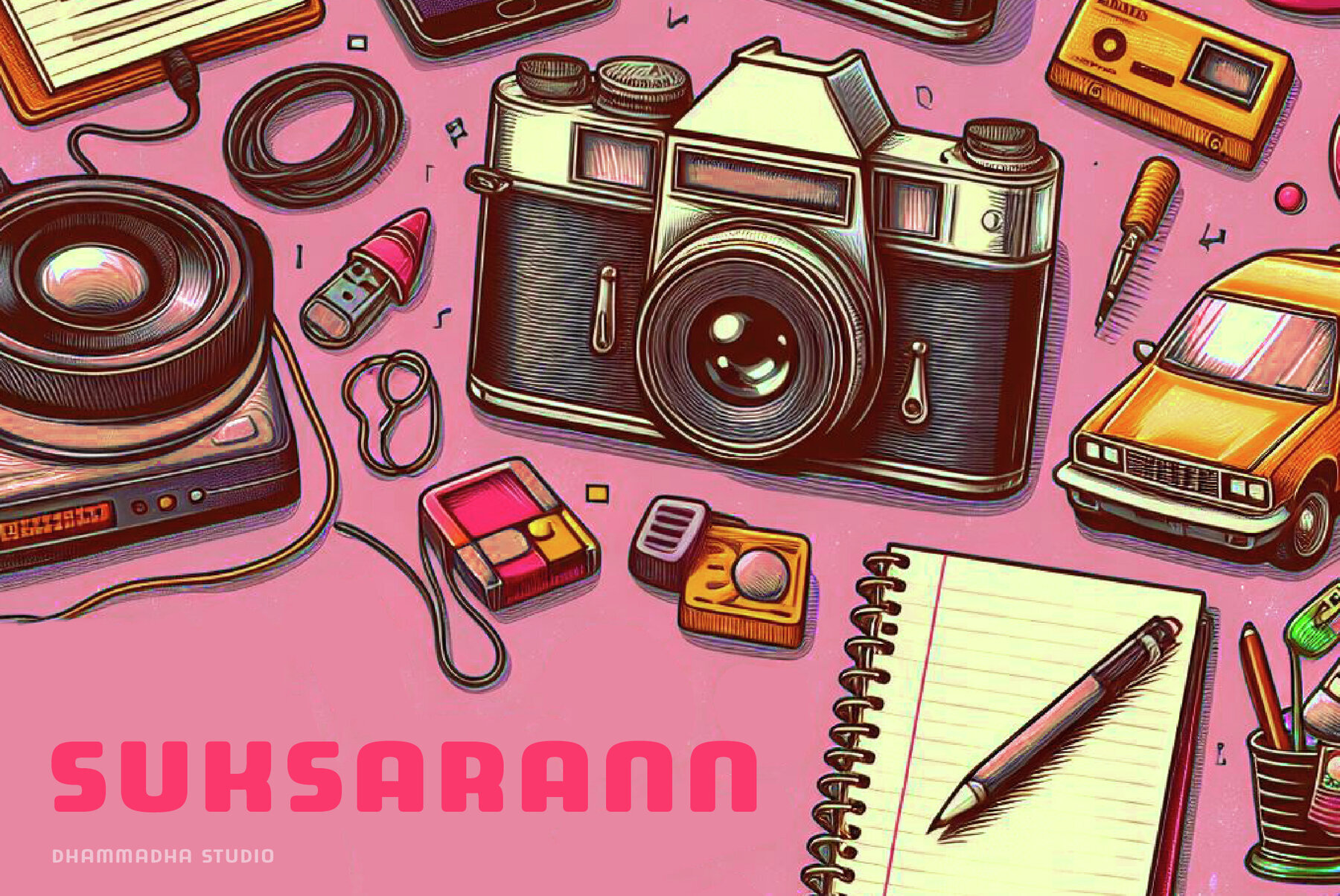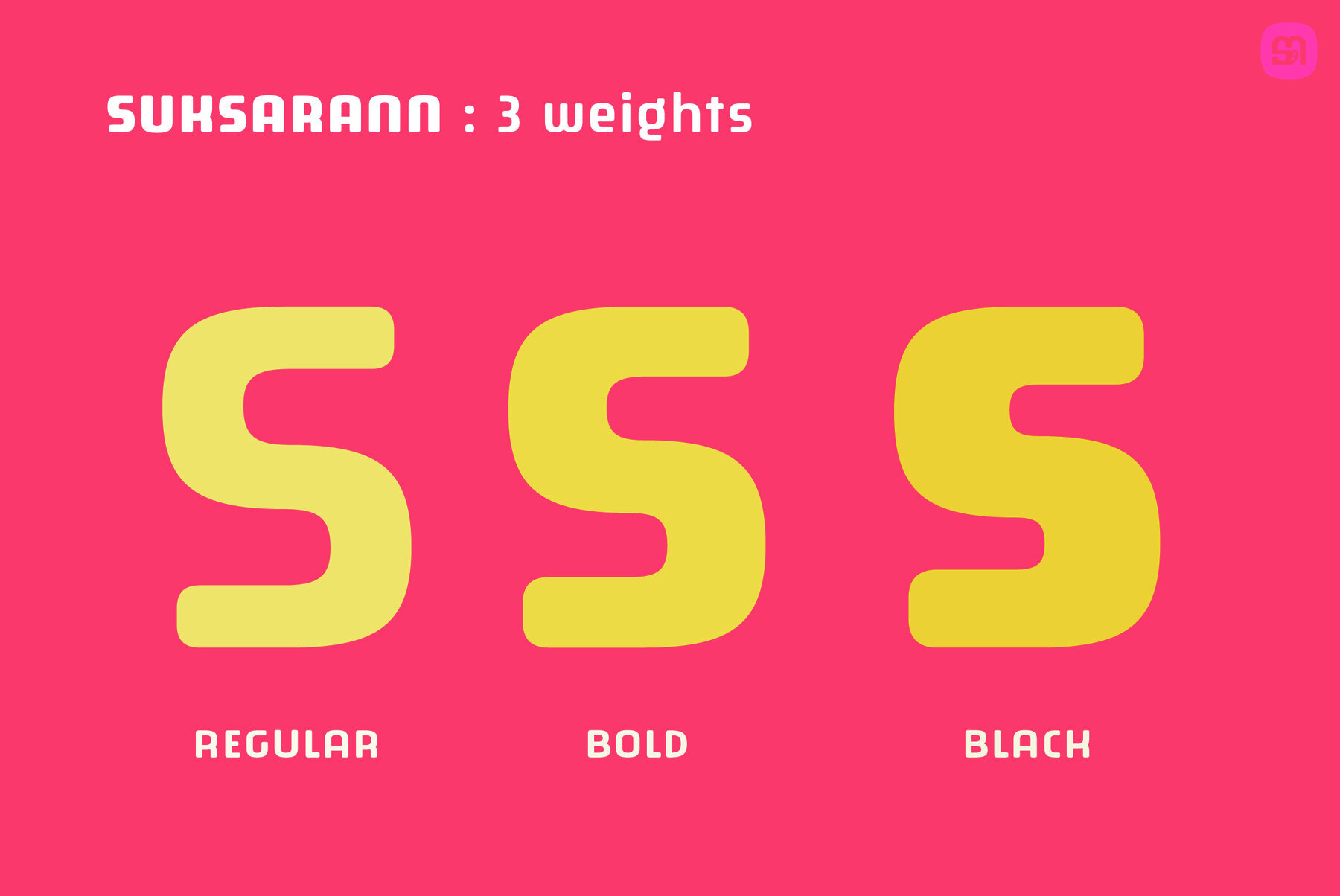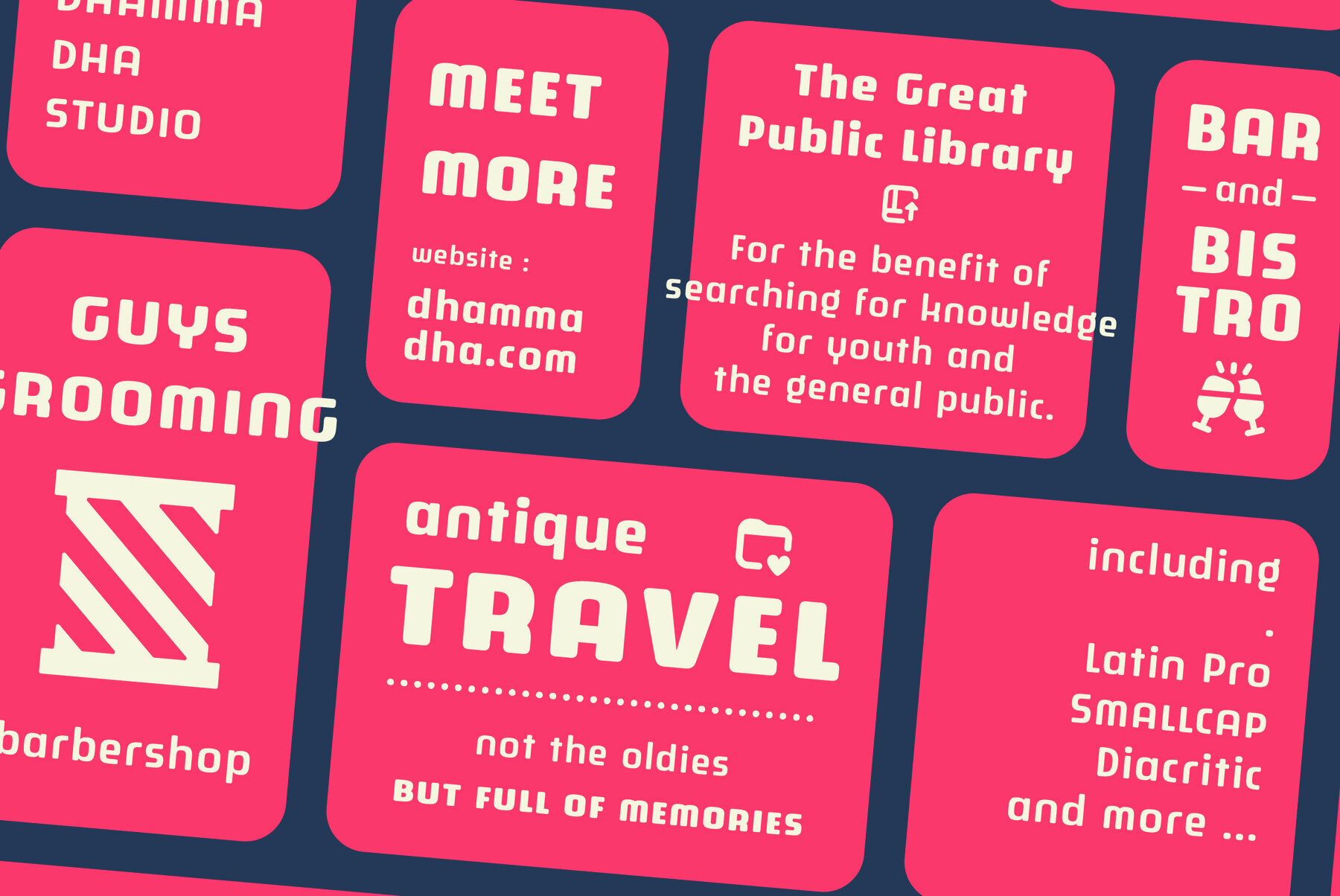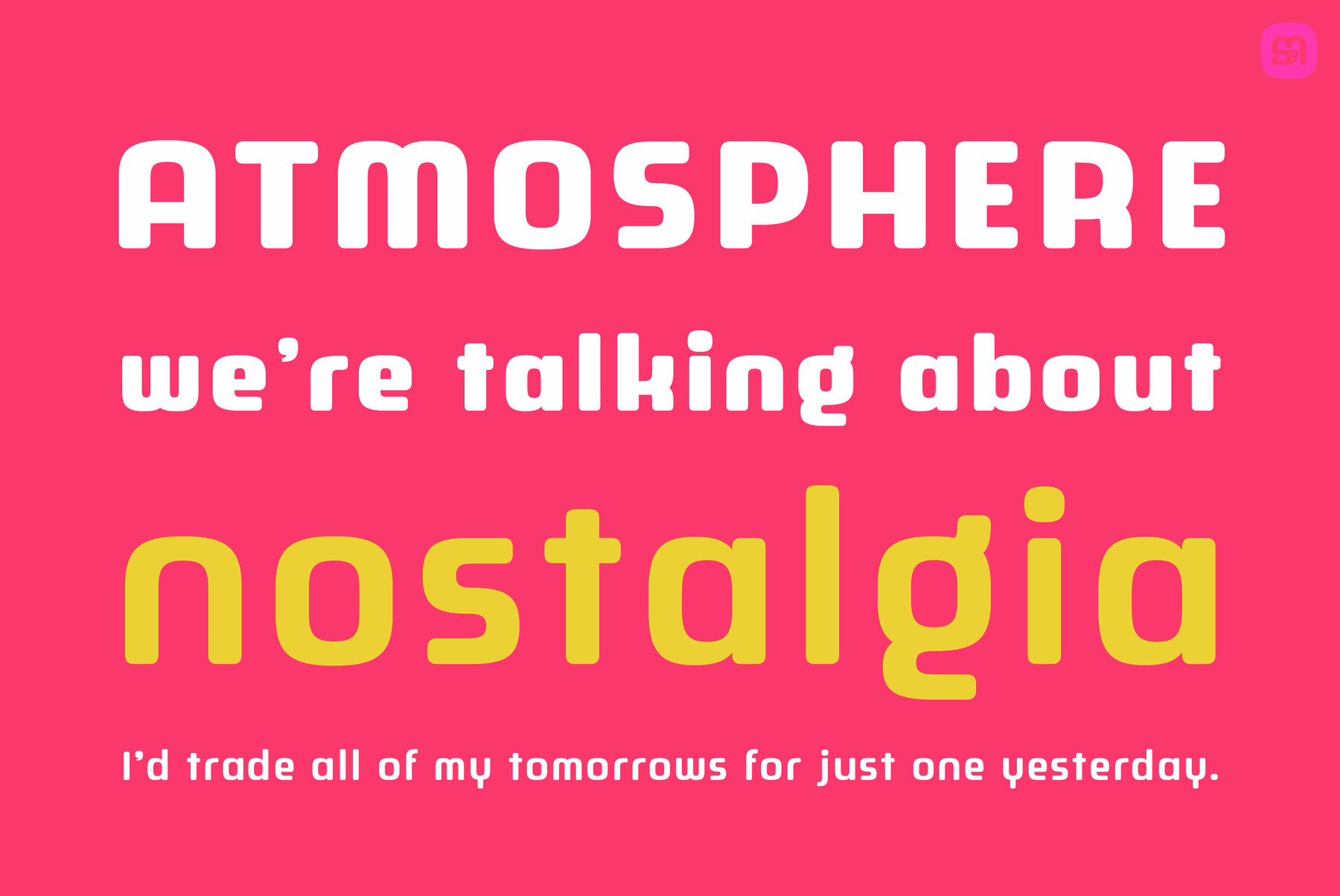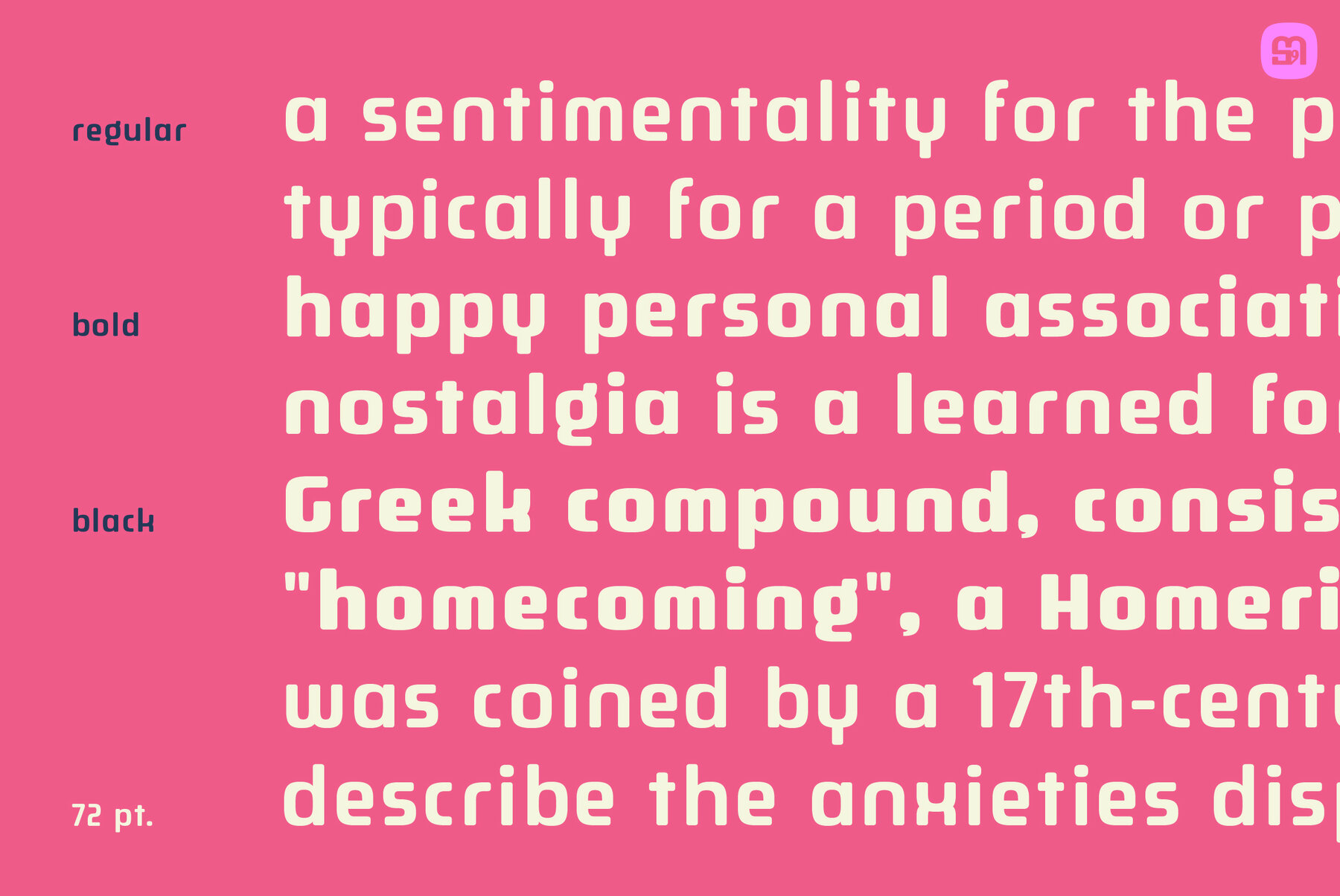
Suksarann Font
SUKSARANN Regular
SUKSARANN Bold
SUKSARANN Black
Discover the bold vibrance and distinctive appeal of SUKSARANN. This dynamic display font transcends the average, embracing a cool-edge and creative finesse that brings your creative visions to life. SUKSARANN has the ability to transform the ordinary into the extraordinary, amplifying the visual impact of any project it graces. Regardless of your creative terrain, SUKSARANN emerges as an invaluable font powerhouse, infusing every creation with an uplifted caliber of brilliance. It’s a game-changer, a must-have addition to your font arsenal, guaranteed to magnify the charisma of your text with its compelling personality.